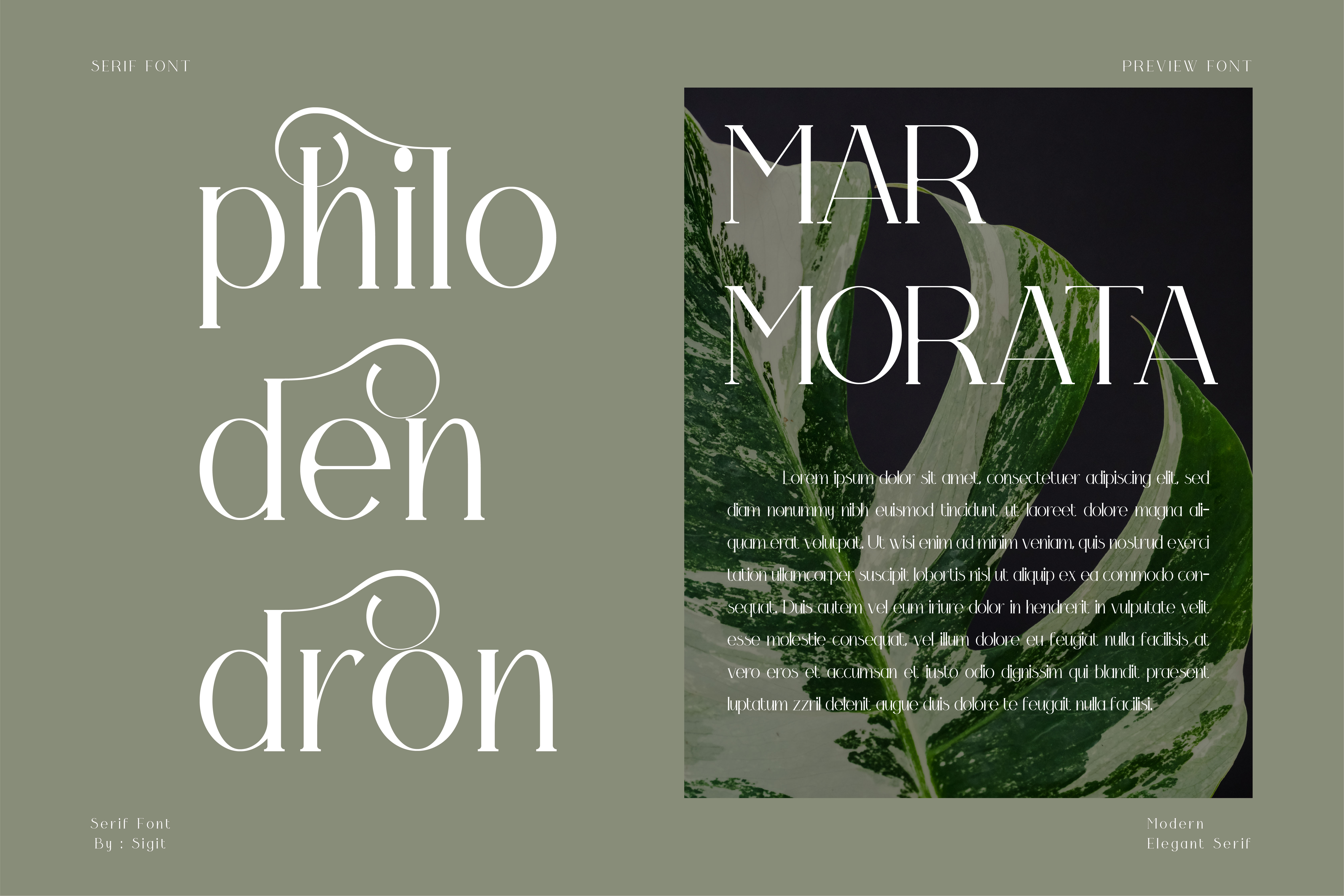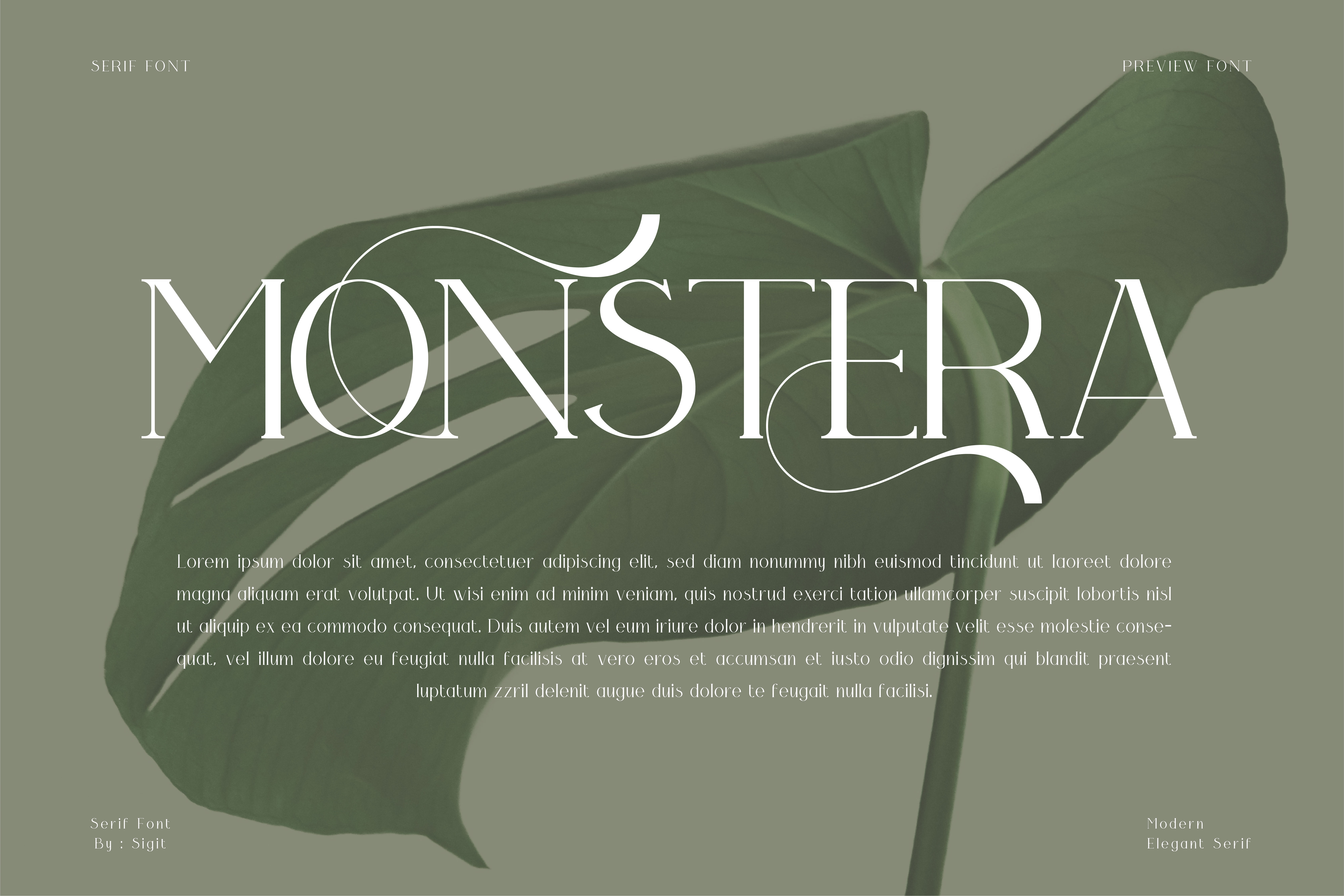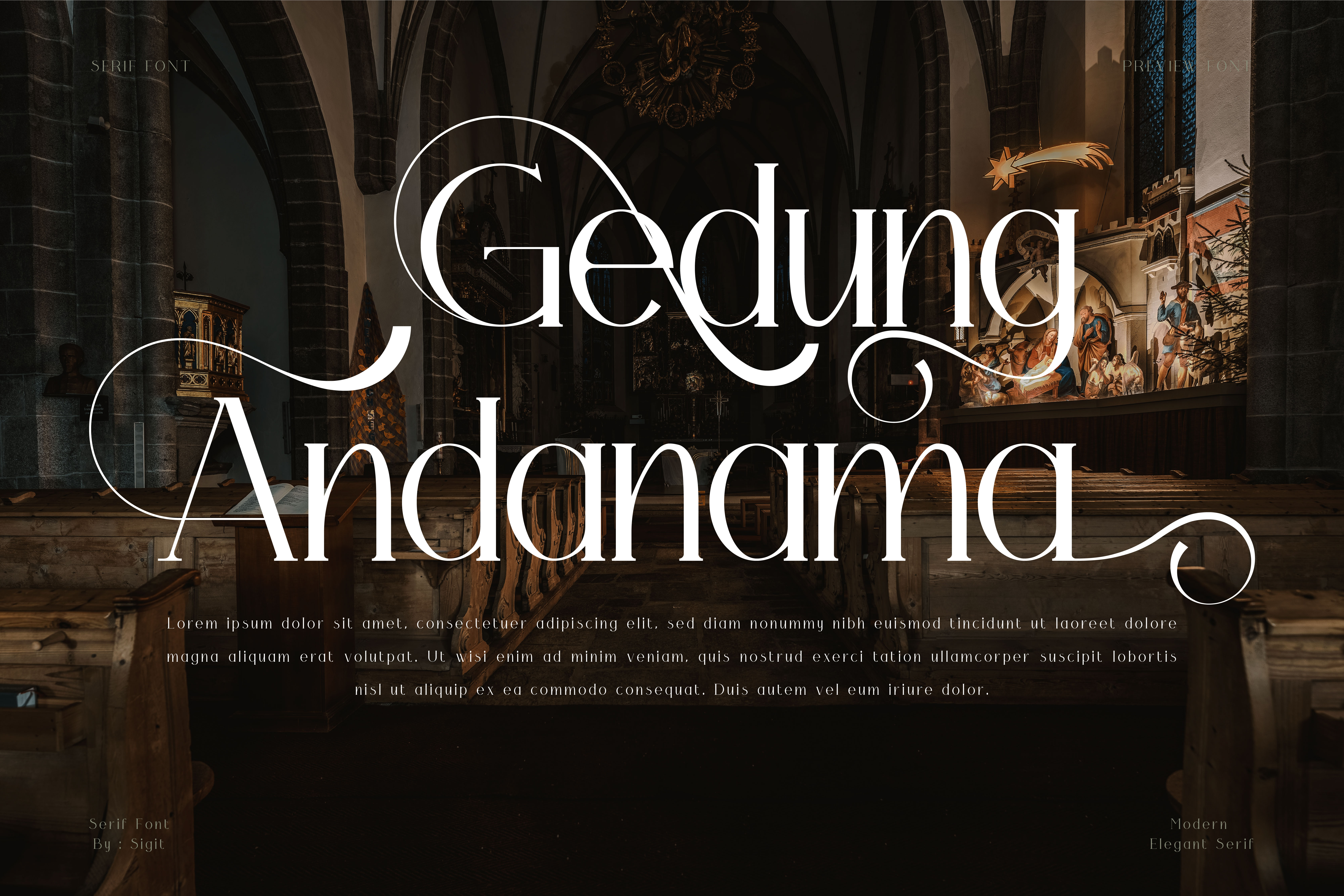
Gina Kinari is a modern, elegant, and stylish all-caps serif with a set of alternatives and a supported font thickness for each character. The font will make your design ideas stand out! Keep in mind that the fond is PUA encoded, meaning that you can access all delightful glyphs and swashes effortlessly.